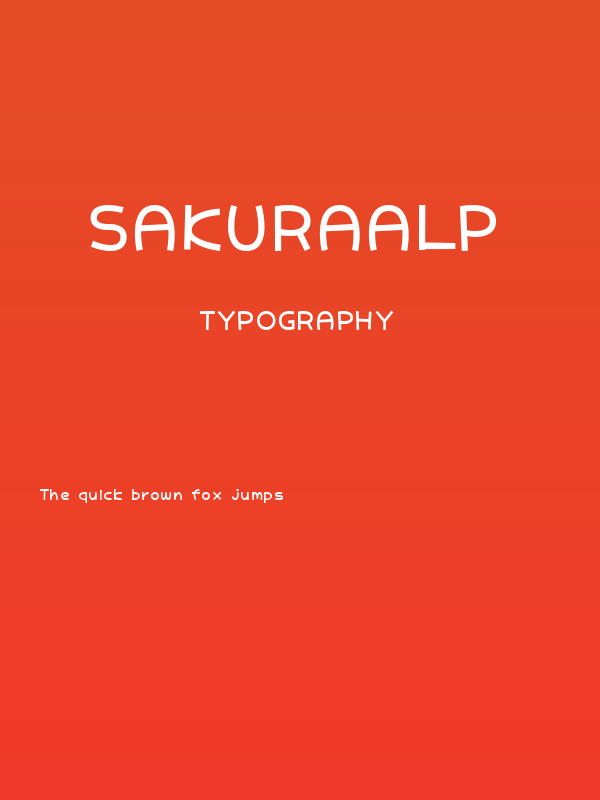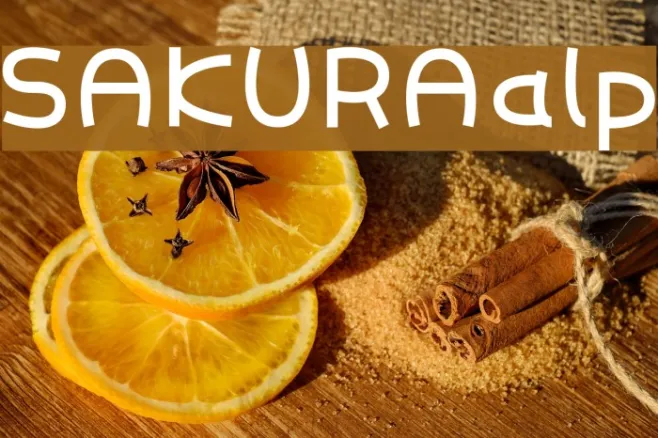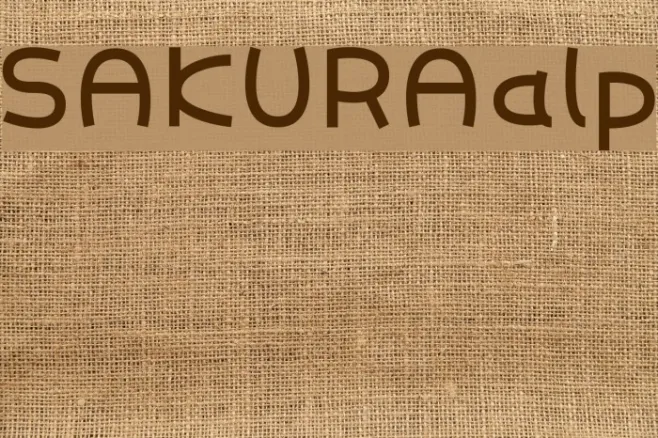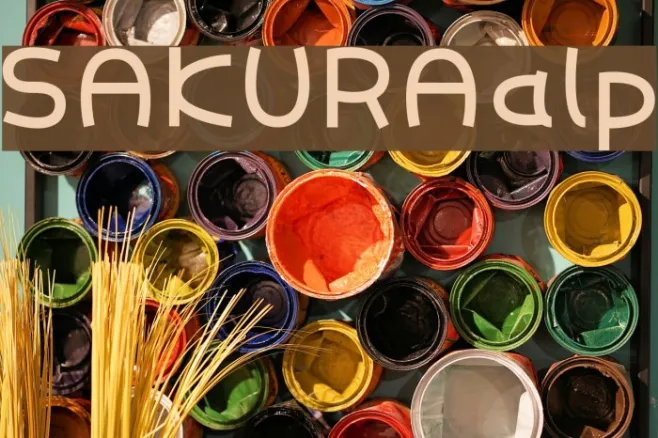
SAKURAalp Font
SAKURAalp Description
This font features a playful and modern design with a slightly rounded and friendly appearance. The characters are bold and have a consistent stroke width, giving them a uniform and balanced look. The uppercase letters are slightly taller than the lowercase, providing a clear distinction between the two. The numerals are straightforward and easy to read, while the special characters maintain the same playful style, making them suitable for a variety of uses. The overall design is clean and approachable, making it ideal for projects that require a touch of modernity and friendliness.
| Proposed Projects | Ideal for children's books, playful branding, modern web design, and casual invitations. |